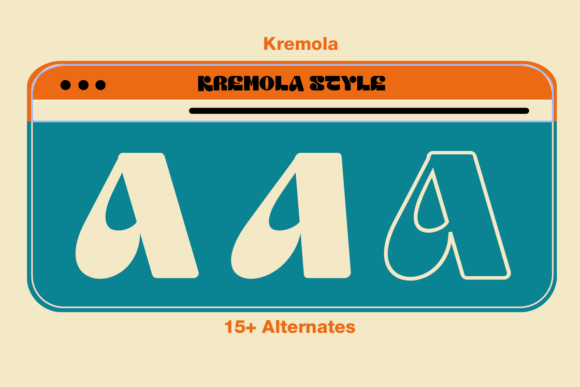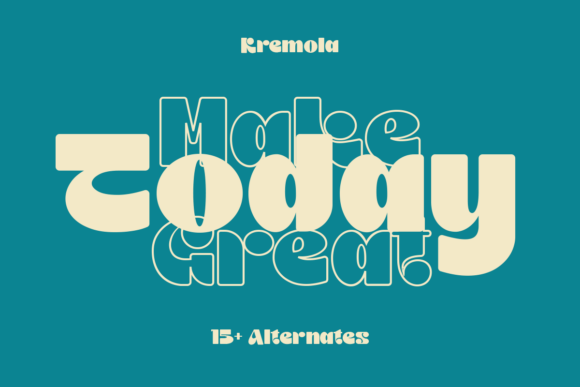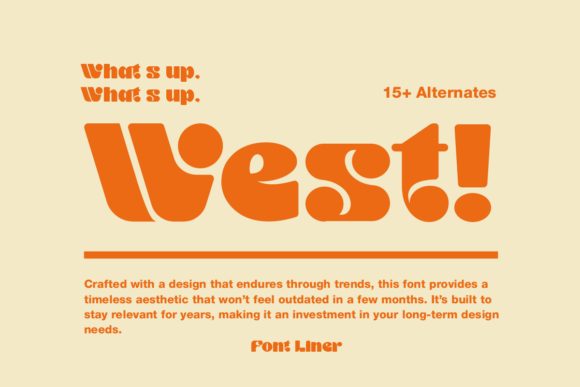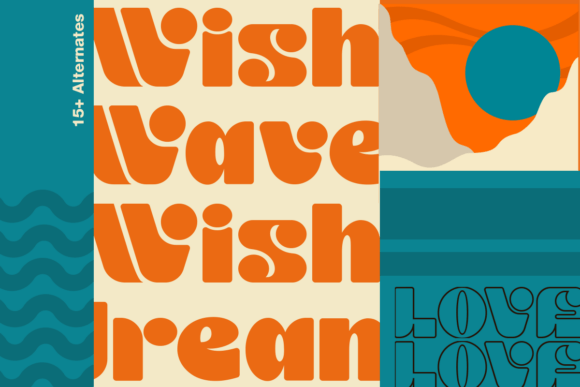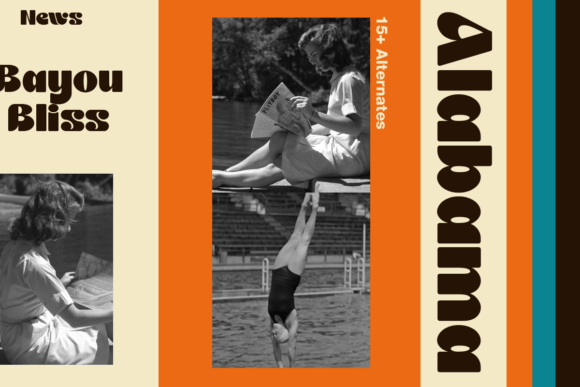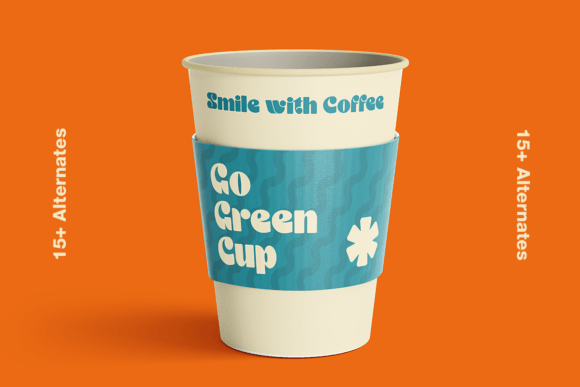
Introduction to Kremola Font
Have you ever stared at a blank canvas, trying to bring your creative vision to life? The cursor blinks, and your mind goes blank. It’s a familiar feeling for designers, but what if you had the perfect tool to spark inspiration? Enter the Kremola Font, a stunning display sans font that’s about to revolutionize your design projects.
With its charming and warm character, Kremola Font is the ultimate design resource for creating logos, greeting cards, posters, packaging, and more. Its high-quality design will give your projects a truly unique feel, making them stand out from the crowd. Whether you’re working on a free download or a commercial project, Kremola Font is the perfect choice for designers who want to add a touch of elegance and sophistication to their work.
As a valuable addition to your design arsenal, Kremola Font offers three styles (regular, italic, and outline) and 15 stylistic alternates, giving you endless possibilities to experiment and create something truly special. So why settle for ordinary when you can have extraordinary with the Kremola Font?
Key Features of Kremola Font
- High-quality design resource for creative projects: Kremola Font offers a unique and elegant aesthetic perfect for various design applications.
- Perfect for design projects: Kremola Font is an ideal choice for creative projects, including logos, branding materials, and editorial designs.
Honest Review: Kremola Font
I recently came across the Kremola Font, and I was excited to dive in and see what it had to offer. As a designer, I’m always on the lookout for high-quality design resources to elevate my creative projects.
One of the first things I noticed about Kremola Font was its sleek and modern aesthetic. The font is perfect for any project that needs a touch of sophistication and elegance. The free download option is also a huge plus, making it easily accessible to designers of all levels.
- ✨ Unique and modern design that sets it apart from other fonts
- ⚠️ Limited font styles and weights, which may not be ideal for complex designs
Overall, I’m impressed with the Kremola Font, and I think it’s a great addition to any designer’s toolkit. While it may have some limitations, its unique design and high-quality files make it a valuable resource for creative projects.
Getting the Most Out of Kremola Font
To get the most out of the Kremola Font, use it in conjunction with a transparent background to create a clean and modern design. You can also experiment with different font sizes and styles to add visual interest to your project.
The Kremola Font is a versatile design resource that can be used in a variety of creative projects, such as logos, business cards, and social media graphics. It’s also a great choice for presentations, documents, and other professional materials that require a high-quality and modern look.